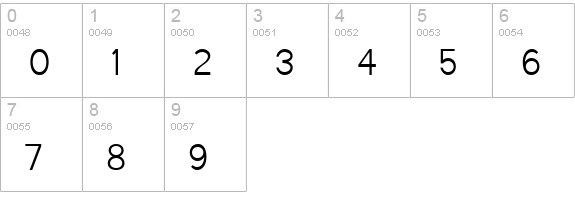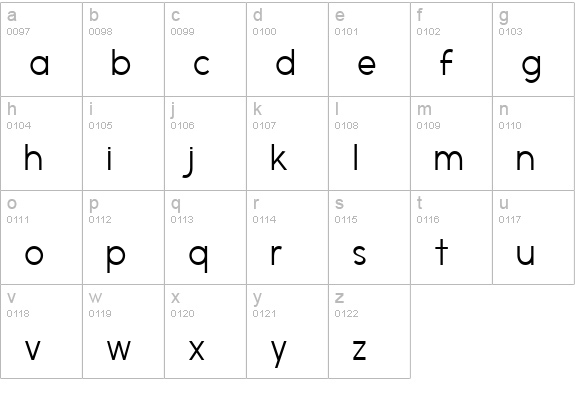
Morningtype Light is a refined, elegant variant in the Morningtype typeface family \xE2\x80\x94 well suited to elegant body text, refined sub-headings, and luxury branding.
Morningtype Light is a stunningly elegant font that brings a touch of sophistication and refinement to any design project. With its delicate and graceful letterforms, this font exudes a sense of tranquility and serenity, making it perfect for creating designs that evoke a sense of calm and peacefulness. The Morningtype Light font is incredibly versatile, making it suitable for a wide range of applications. Whether you're designing a logo, a website, or a print advertisement, this font will add a touch of elegance and professionalism to your work. One of the best things about Morningtype Light is that it is available for free. That's right, you can download this beautiful font without spending a penny. Simply head over to FontsMarket.com and you'll find the Morningtype Light font ready to be downloaded and used in your projects. So why wait? Elevate your designs with the timeless beauty of Morningtype Light. Download it for free today at FontsMarket.com and unlock a world of possibilities for your creative endeavors.